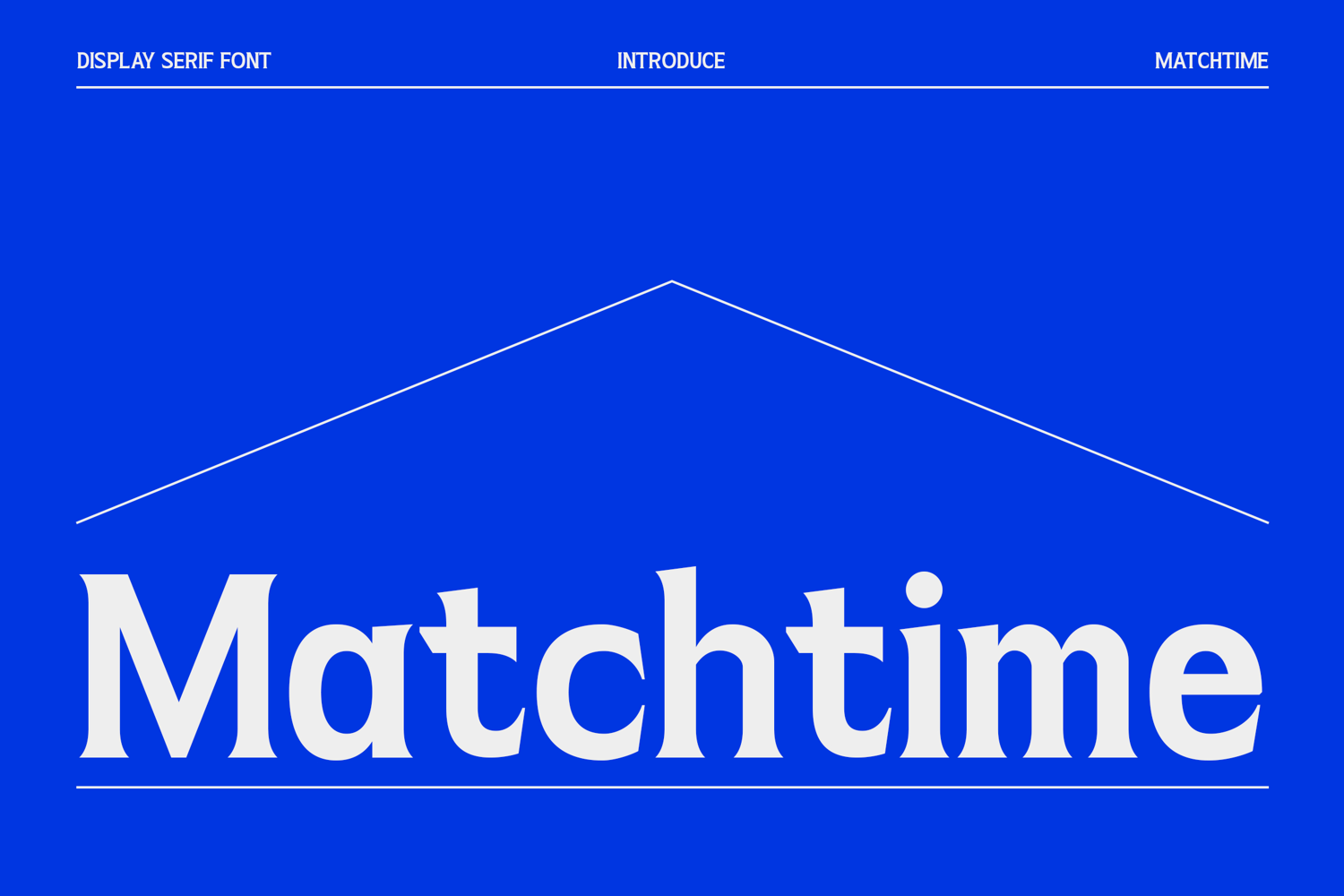
Matchtime Display Font
Matchtime is a refined display serif font that combines modern sophistication with timeless editorial elegance. Featuring high-contrast strokes, graceful curves, and stylish sharp serifs, this typeface delivers a luxurious and contemporary visual identity perfect for premium branding and creative layouts. Designed with a minimalist yet expressive character, Matchtime works beautifully for fashion campaigns, magazine headlines, luxury packaging, beauty brands, website hero sections, social media graphics, and upscale logo design. Its balanced proportions and artistic letterforms create a polished aesthetic that feels both classic and fresh, making it an excellent choice for designers seeking an elegant serif with strong visual impact.